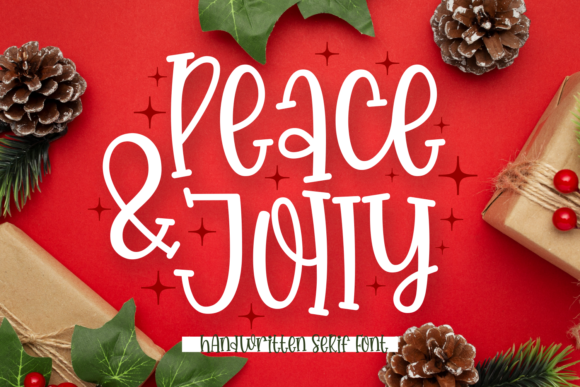
Journey into the world of Peace & Jolly, a whimsical serif font that dances off the page with its infectious charm. Designed by the talented Dani of 7NTypes, this font is a breath of fresh air, offering a touch of playfulness and cheer to your digital creations.
Immerse yourself in the intricate details of Peace & Jolly, where each letter is lovingly crafted with a unique personality. The carefully drawn curves and delicate serifs evoke a sense of warmth and approachability, inviting your audience to engage with your content. Unleash your creativity and let Peace & Jolly bring your words to life with its vibrant energy.
With Peace & Jolly, you're not just downloading a font; you're inviting a joyful companion into your design toolkit. Its playful nature makes it the perfect choice for projects that demand a touch of whimsy and cheer. Whether you're creating eye-catching social media graphics, designing charming invitations, or adding a splash of fun to your website, Peace & Jolly is your go-to font for spreading smiles.
Step into a world of boundless possibilities with Peace & Jolly. Its versatility knows no bounds, adapting seamlessly to various design styles and themes. From playful quotes and heartwarming messages to captivating headlines and engaging advertisements, Peace & Jolly becomes an integral part of your creative vision, effortlessly elevating your designs to new heights.
Embrace the spirit of Peace & Jolly and let your imagination soar. Its friendly and quirky personality will infuse your projects with a sense of joy and lightheartedness. Download Peace & Jolly today and embark on a creative adventure where laughter and delight dance hand in hand.